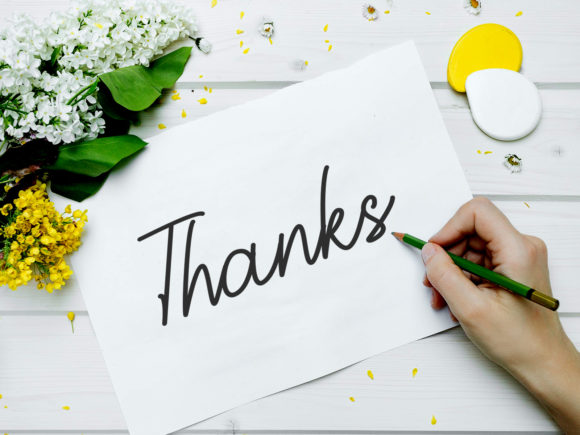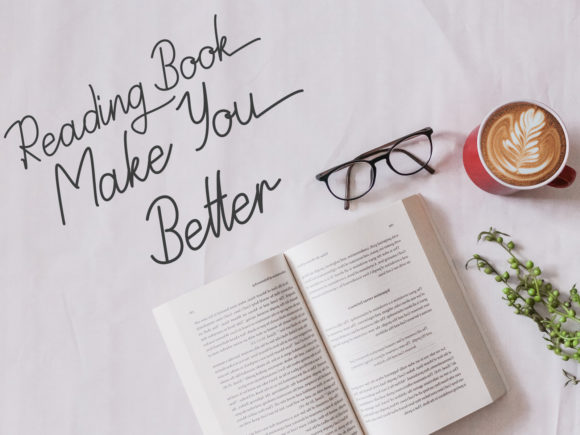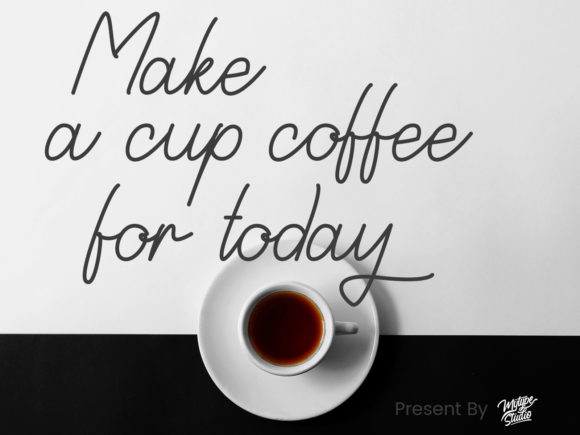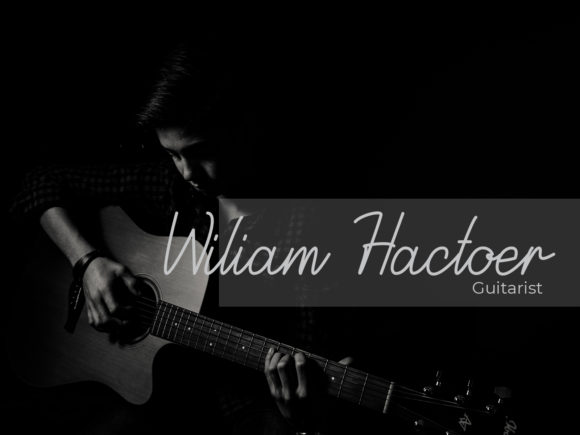
About Astida Font
Astida is a stunning handwritten font that will elevate any design project with its contemporary charm. It is ideal for signatures, quotes, posters, branding, packaging, illustration, social media and more.This font is PUA encoded which means you can access all of the glyphs and swashes with ease!